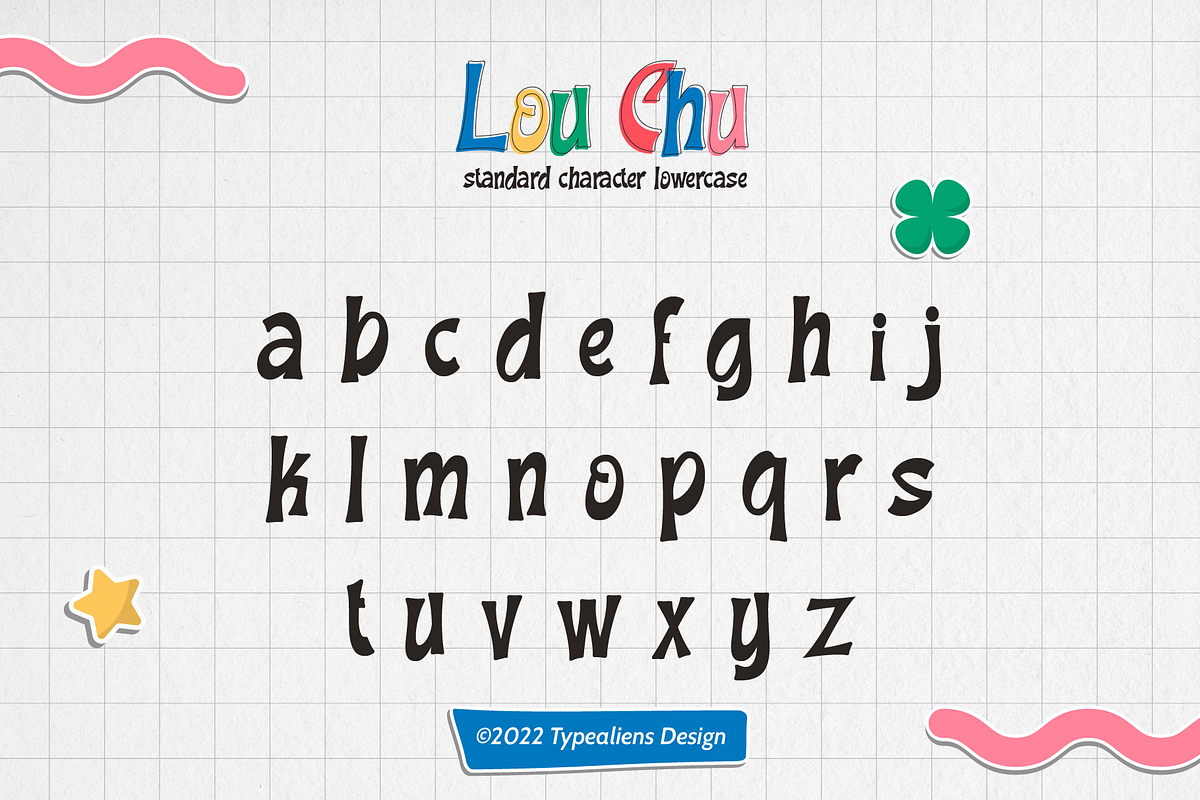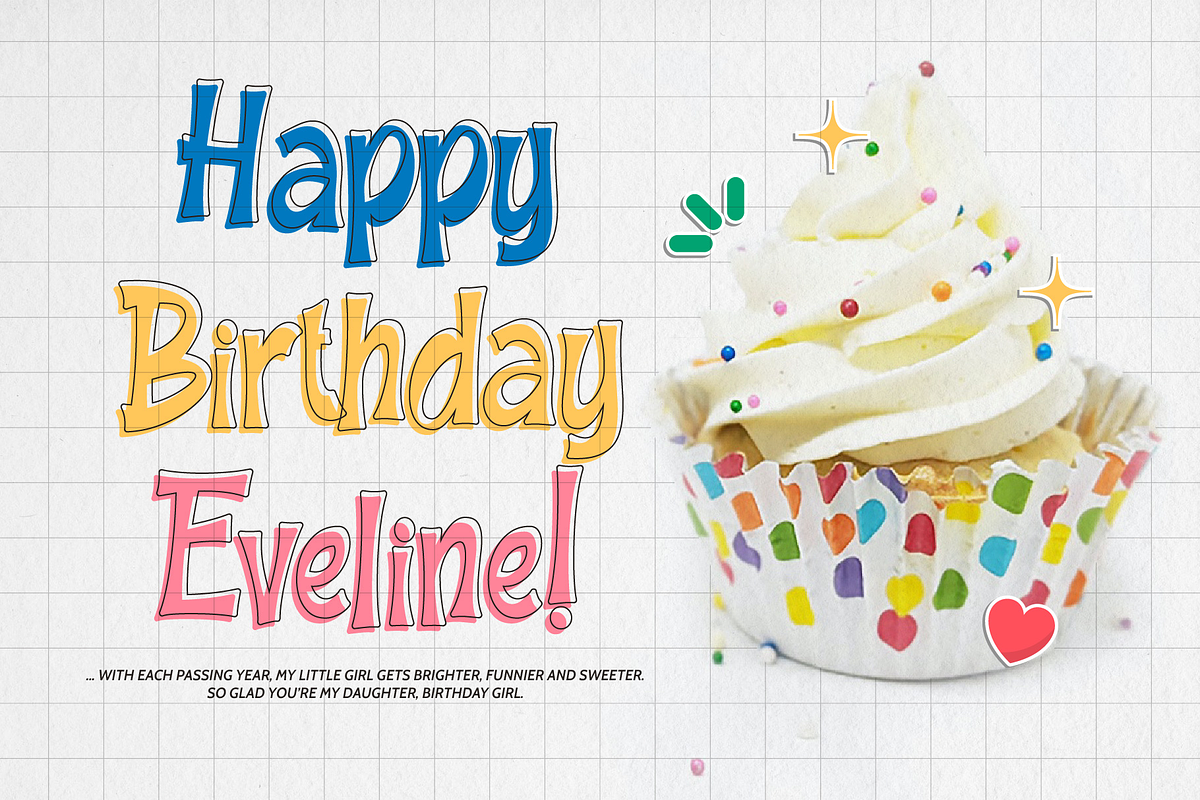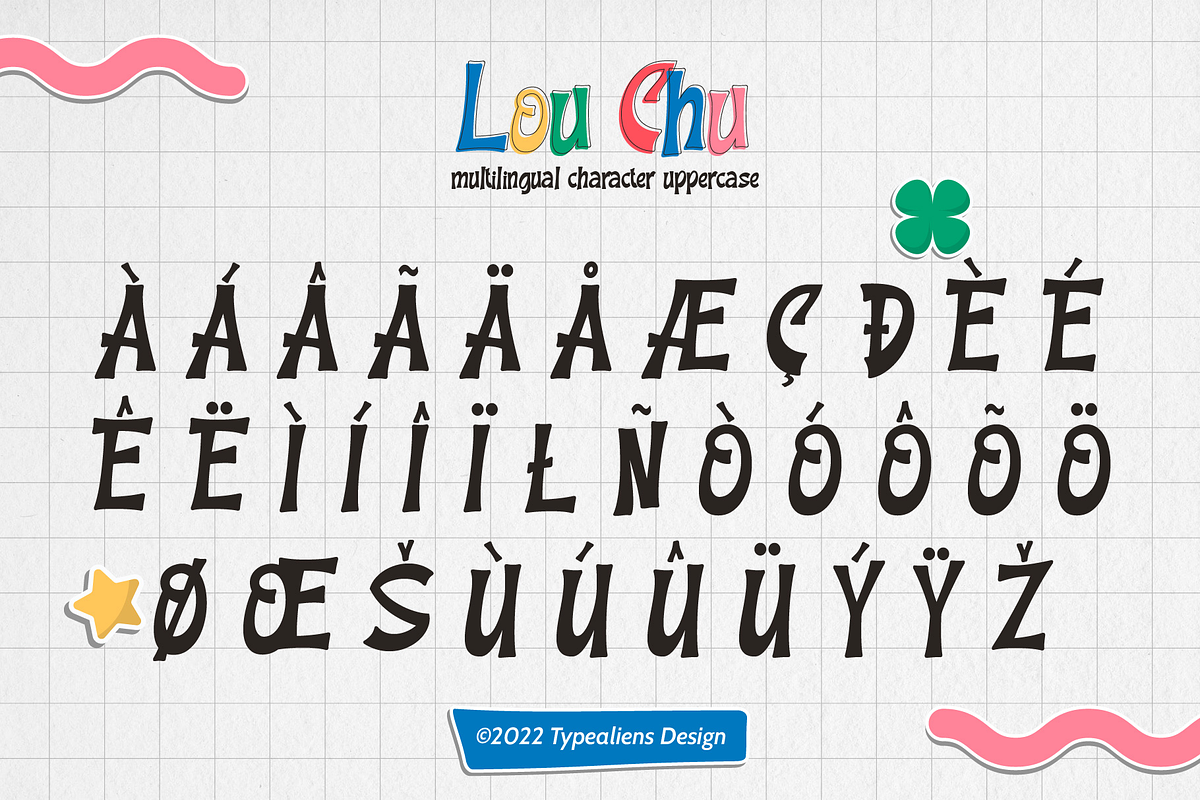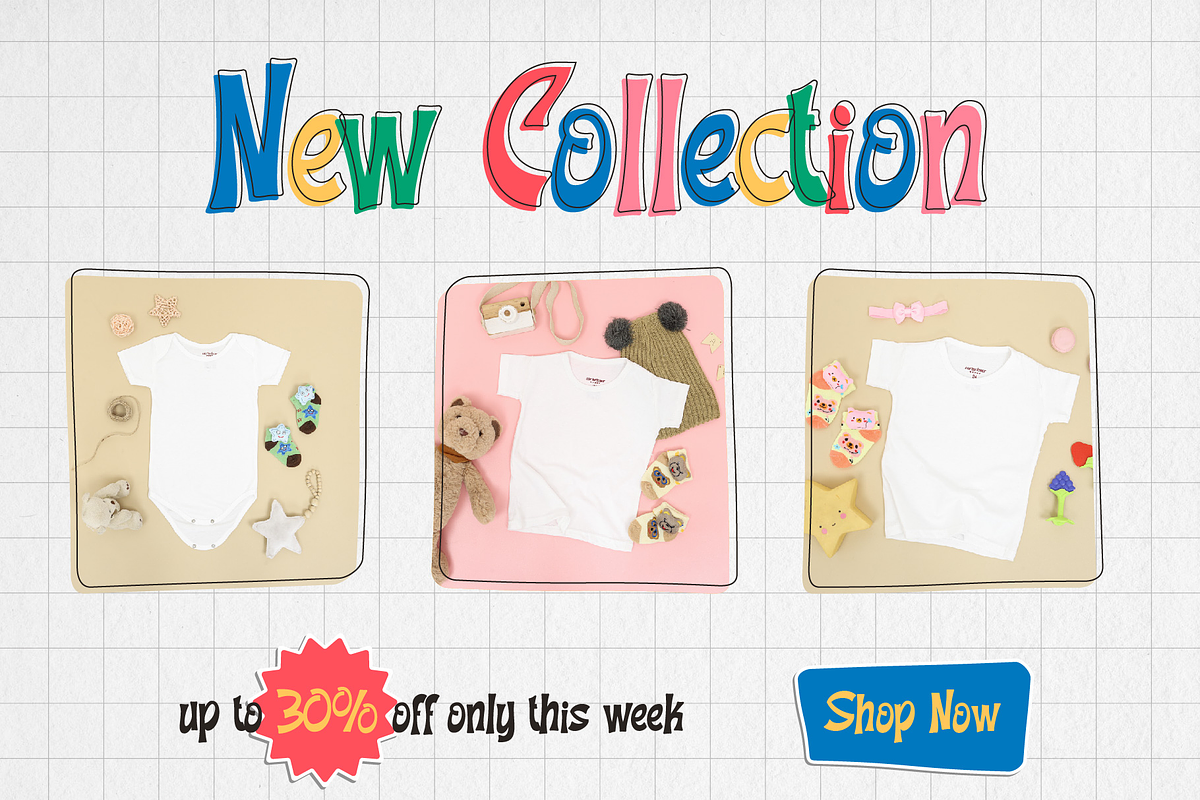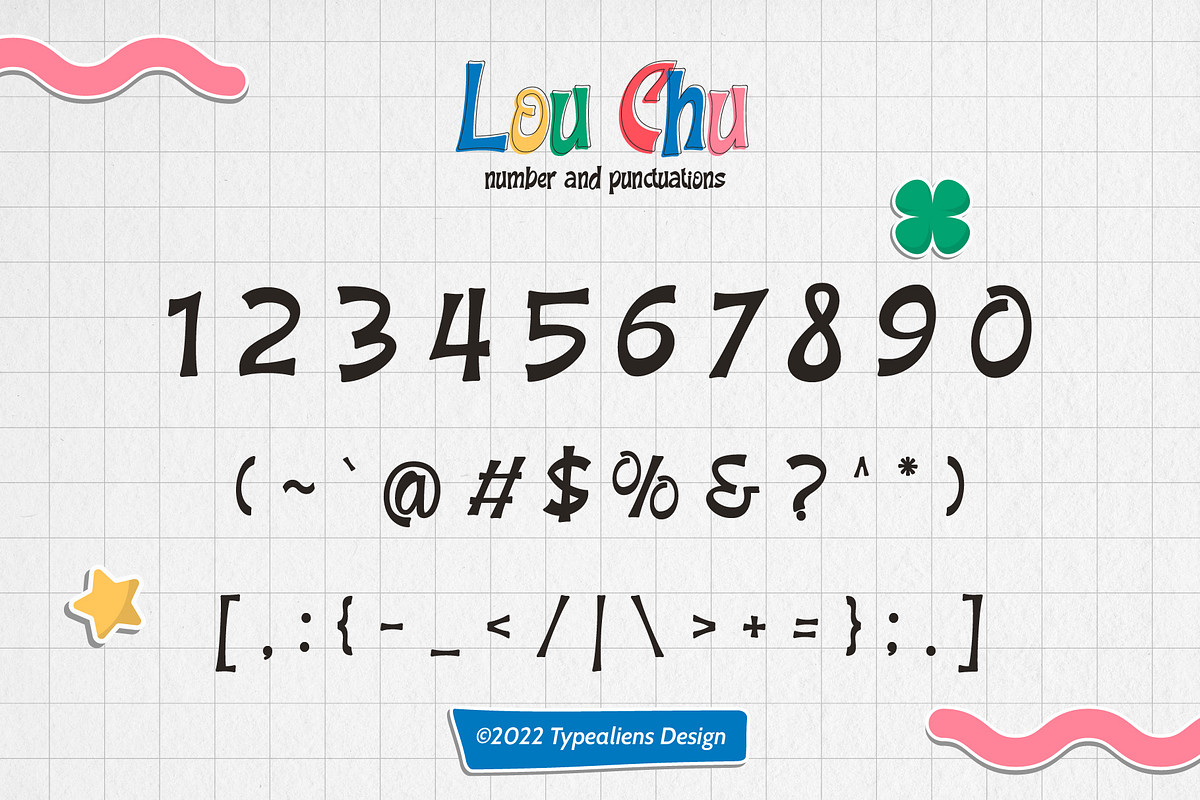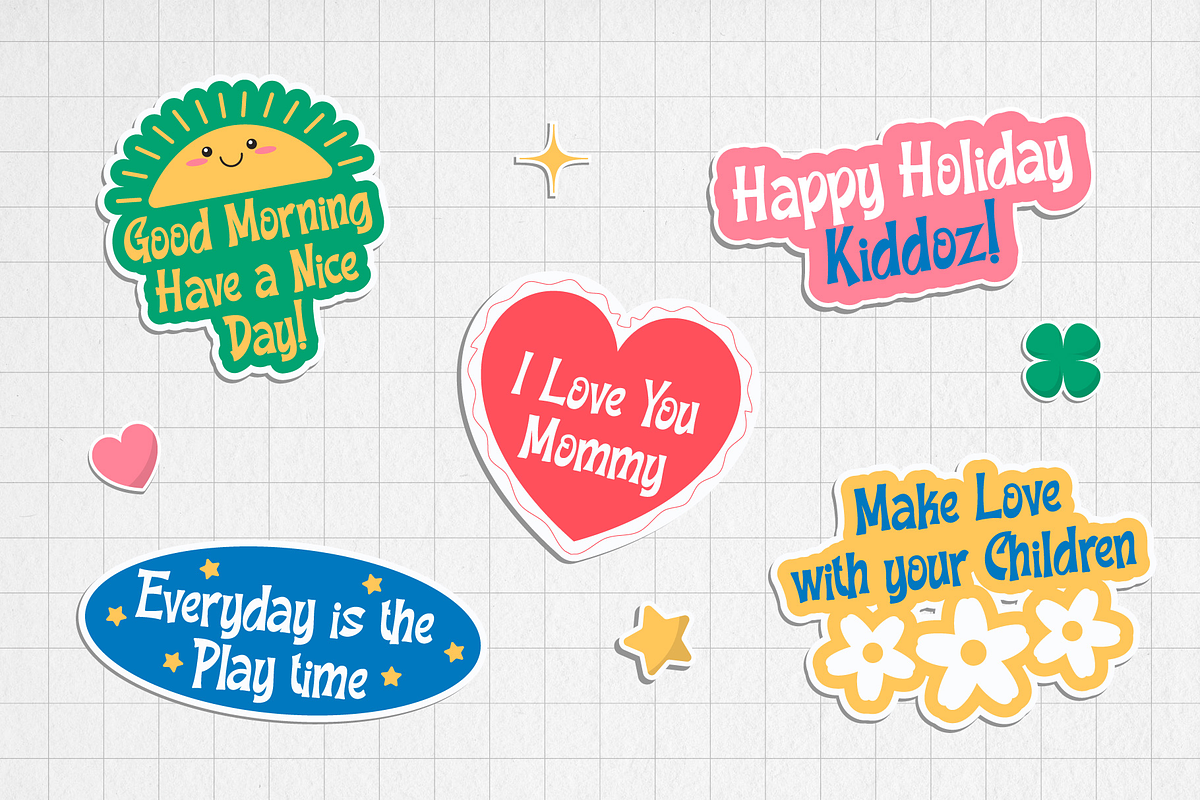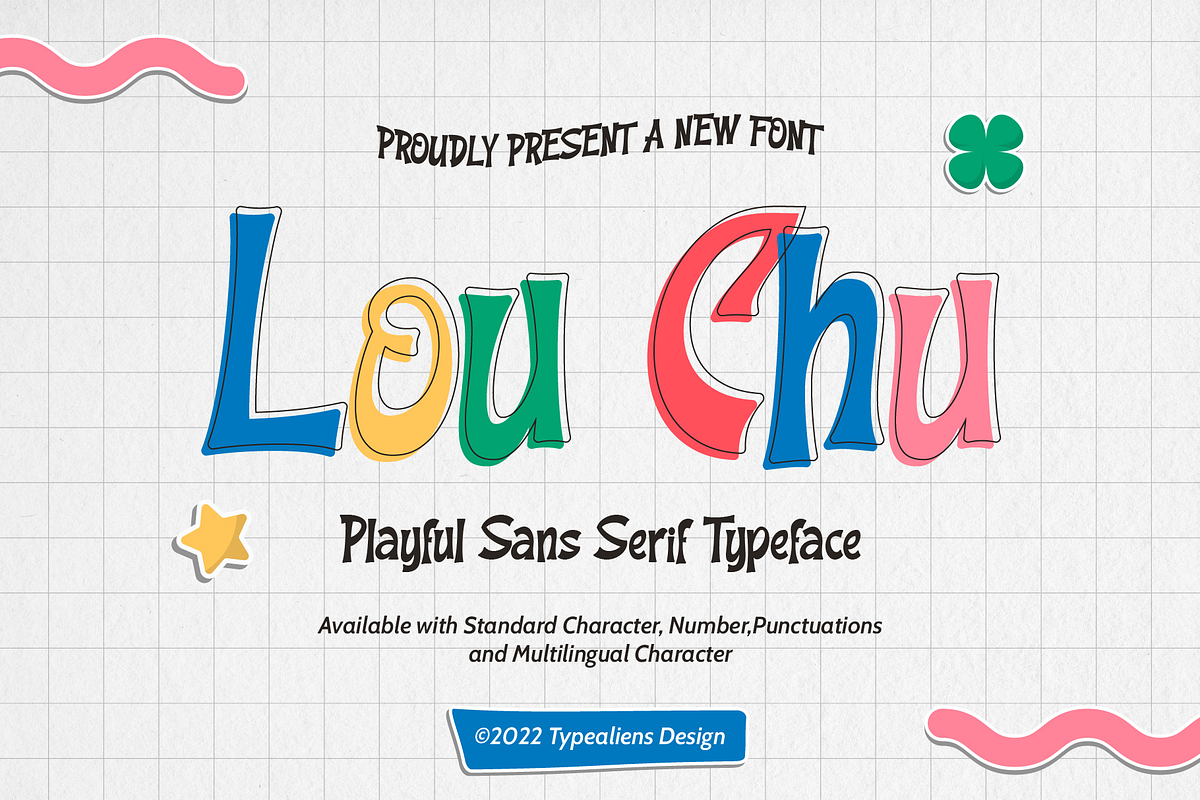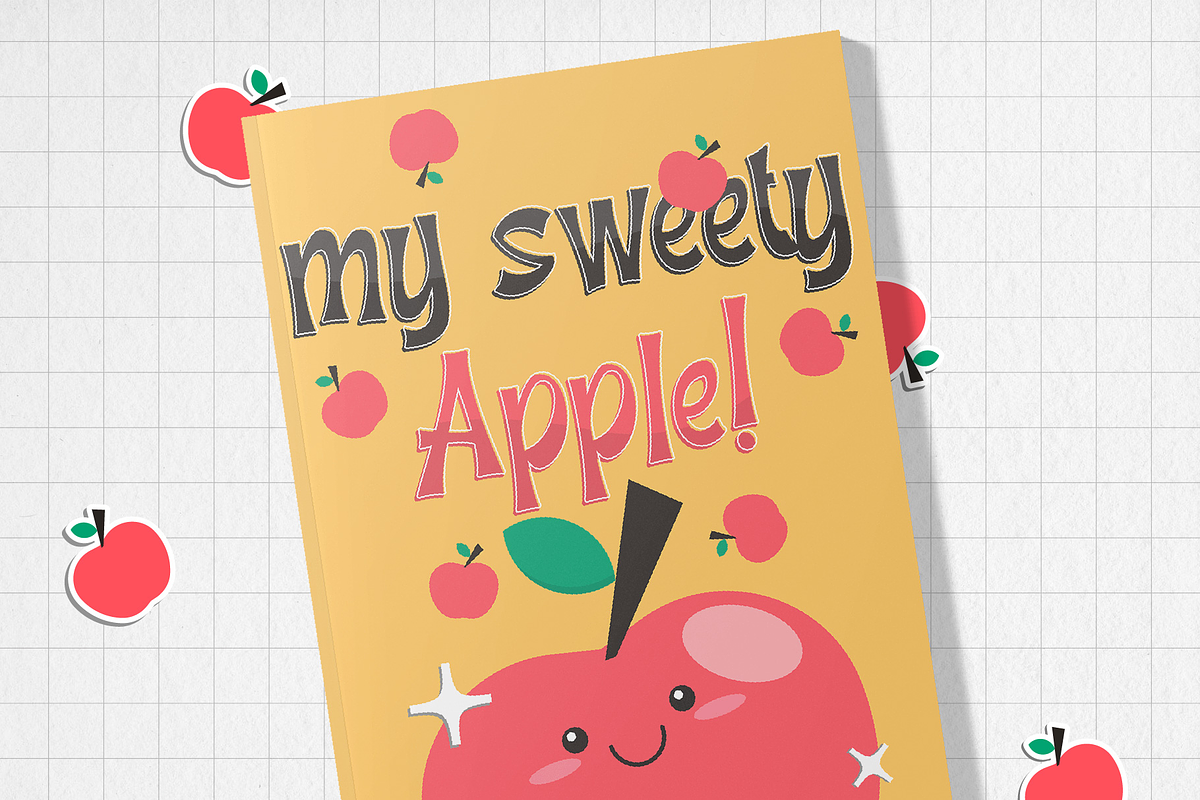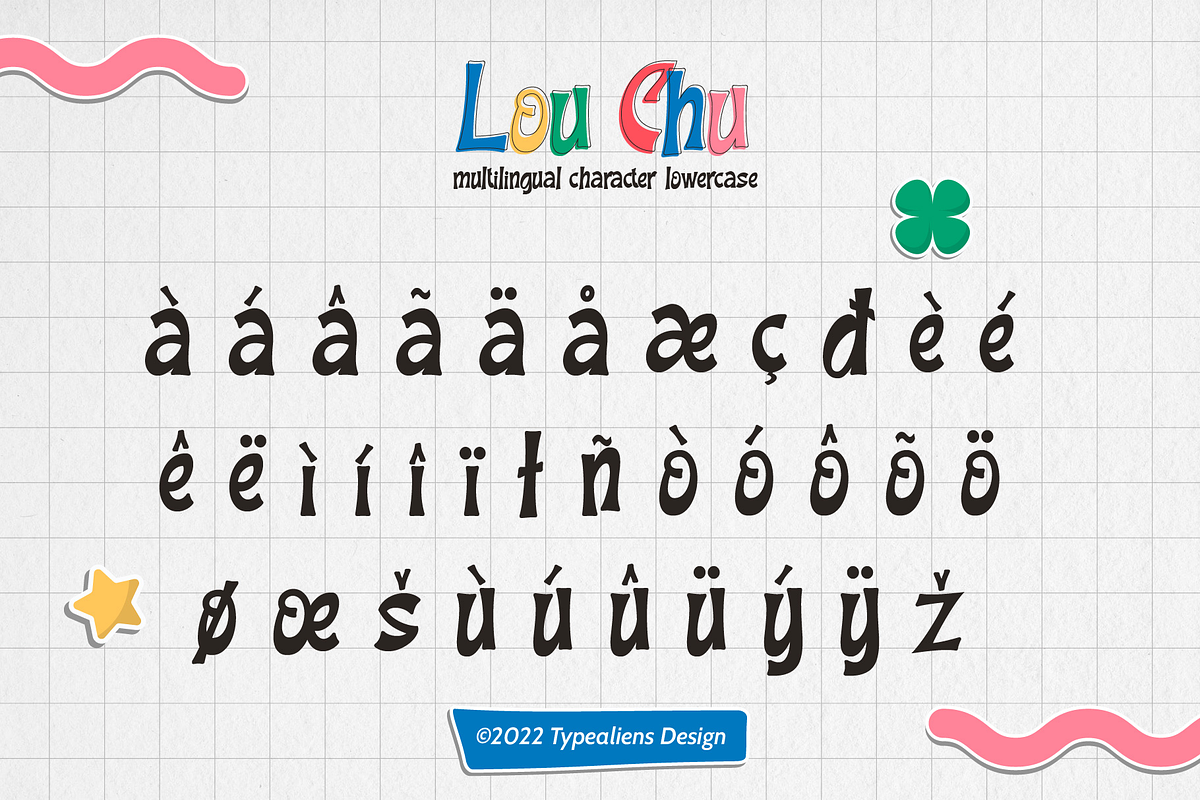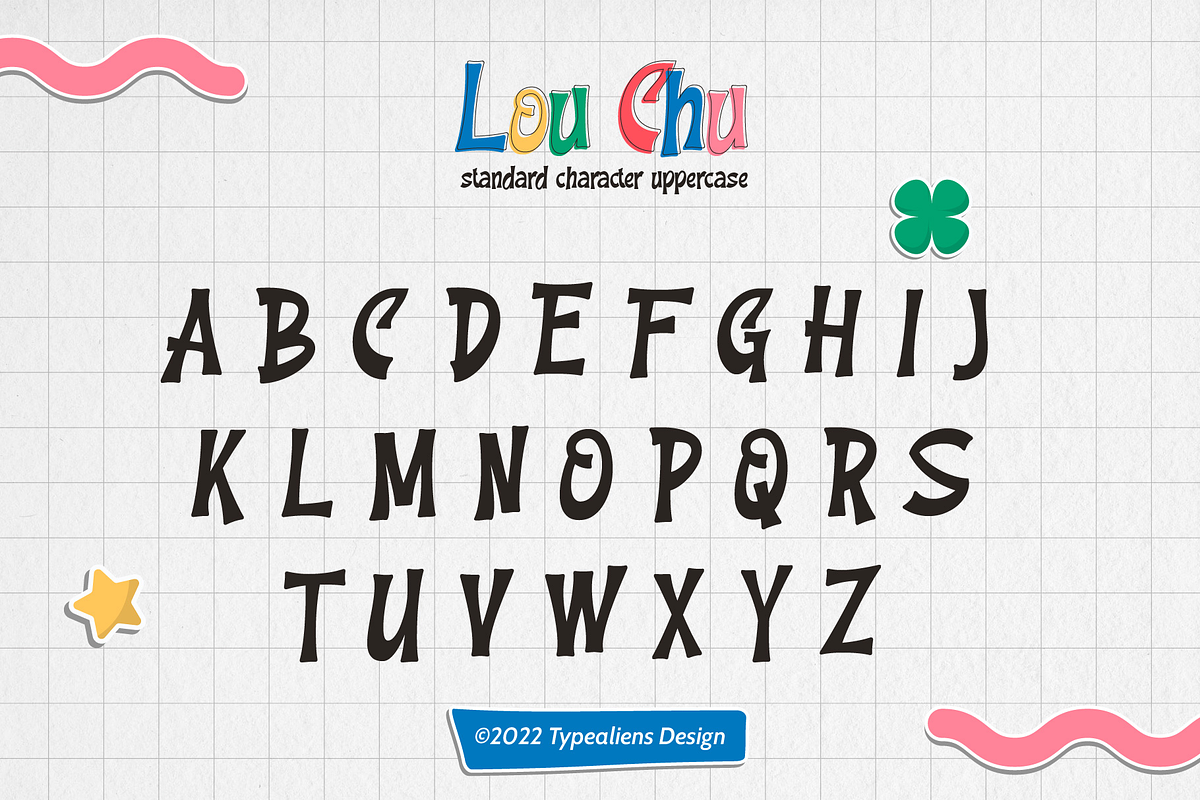
Lou Chu
LOU CHU
Lou Chu is a fun font, one based on a more childish sans serif. Suitable for casual design, children's brands, both fashion and toy stores. Fonts consist of uppercase letters, lowercase letters, numbers and punctuation marks.
As a book headline for children, it will also be very suitable, especially if it is combined with cute and colorful children's illustrations.